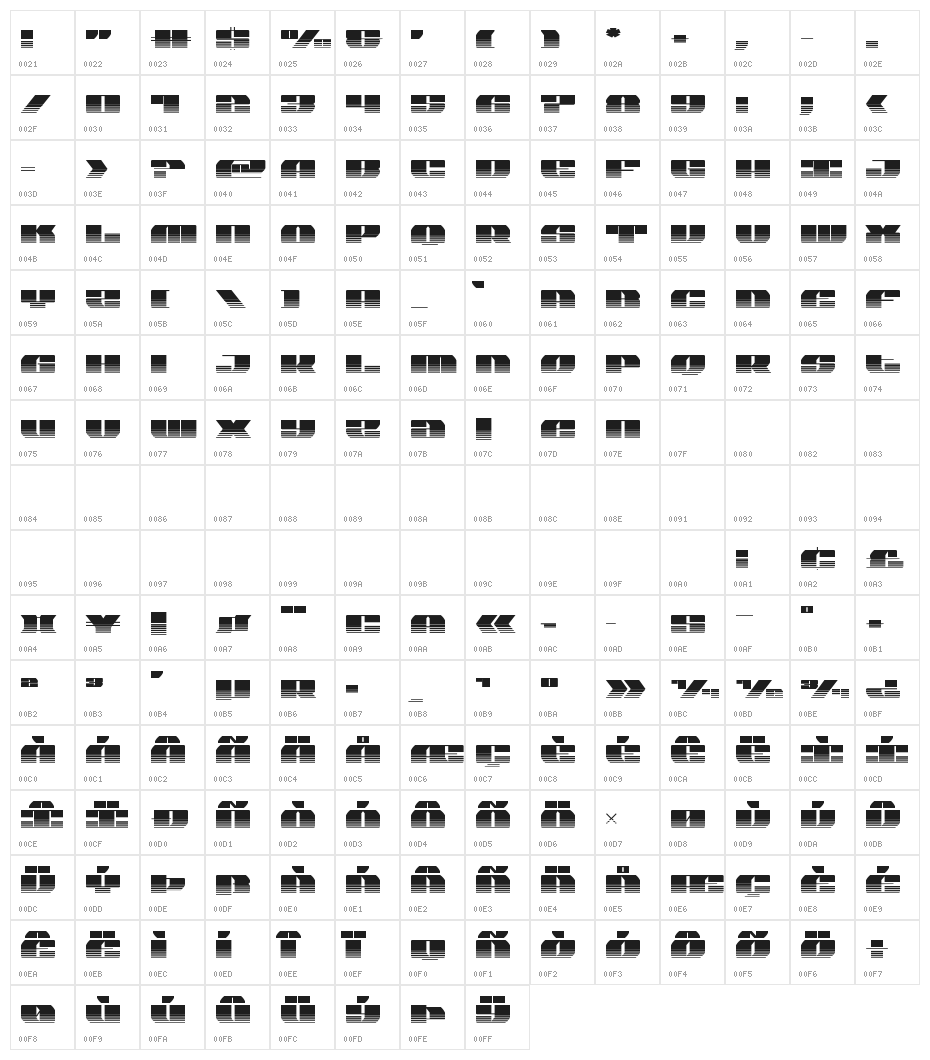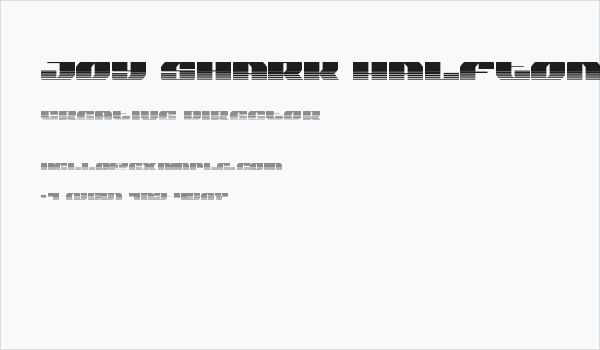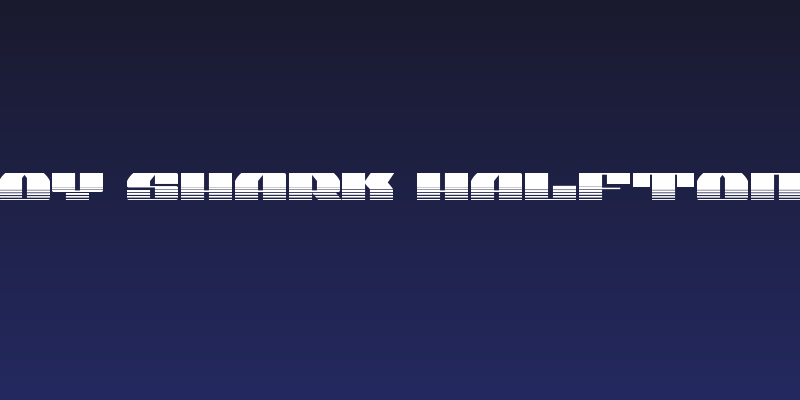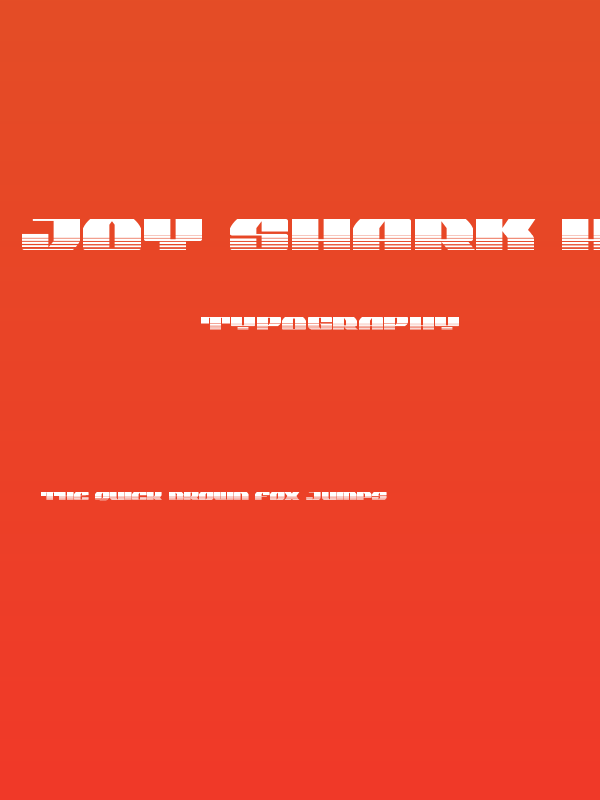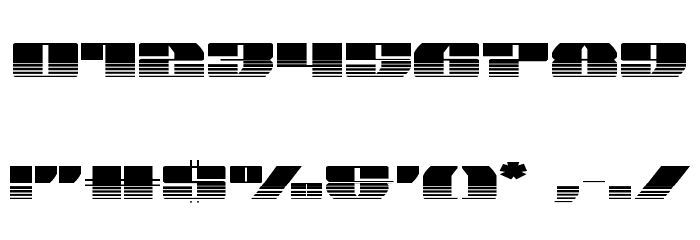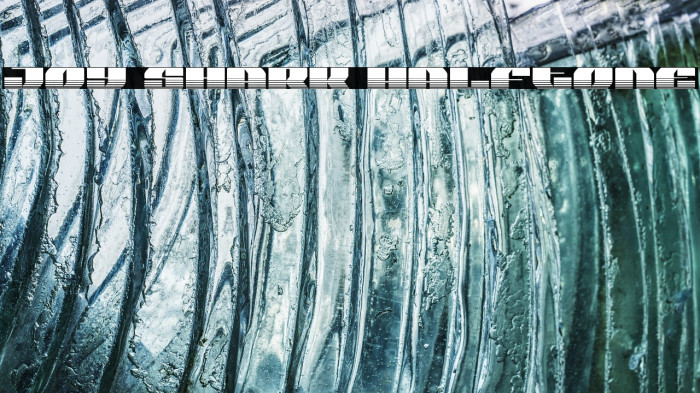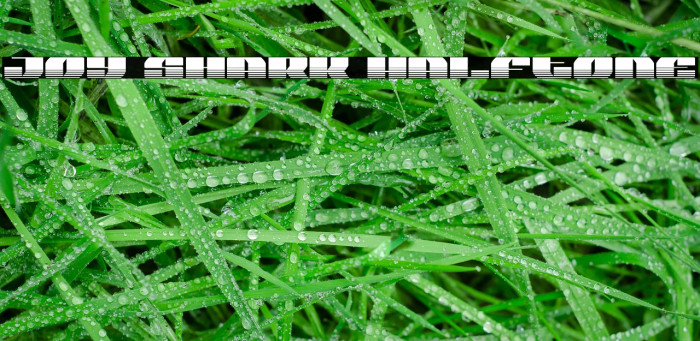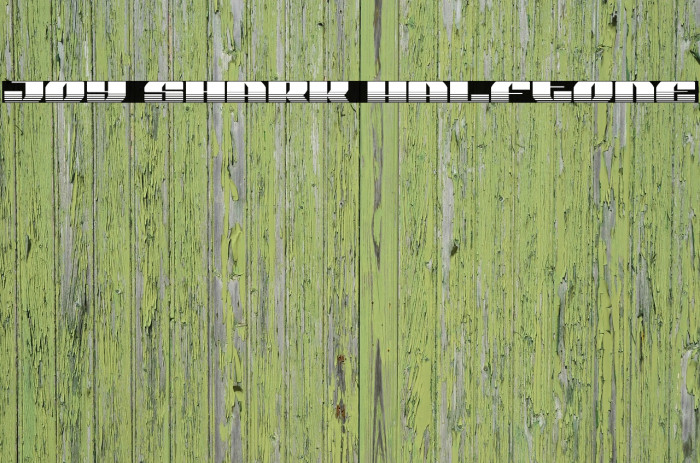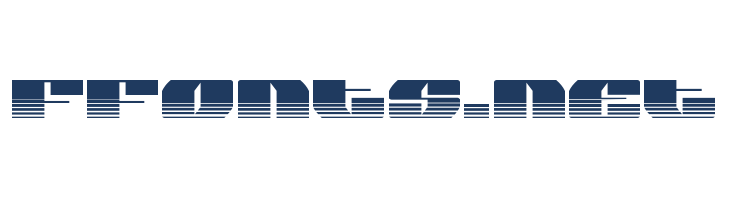
Joy Shark Halftone Font
This font features a bold and striking design with a halftone effect, creating a sense of movement and depth. The characters are constructed with horizontal lines that vary in thickness, giving them a unique, layered appearance. This design choice adds a dynamic and modern feel, making it stand out in any application. The uppercase and lowercase letters maintain a consistent style, ensuring readability while still offering a distinct visual impact. The numbers and special characters are crafted with the same attention to detail, providing a cohesive look across all elements. This font is perfect for projects that require a bold statement and a contemporary aesthetic.
| Proposed Projects | Ideal for posters, album covers, branding, and any project needing a bold, modern touch. |